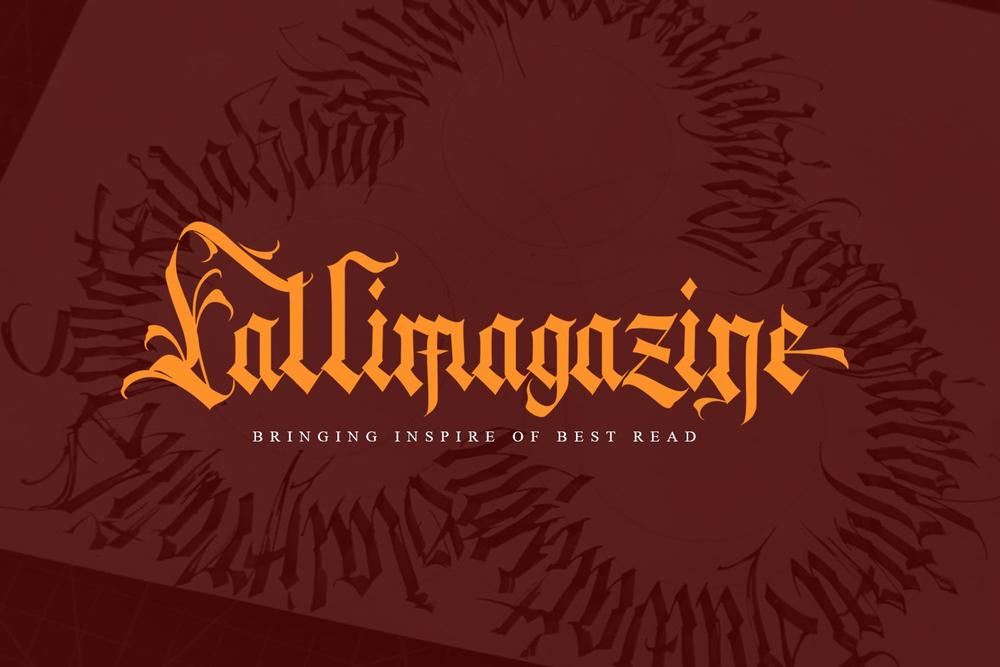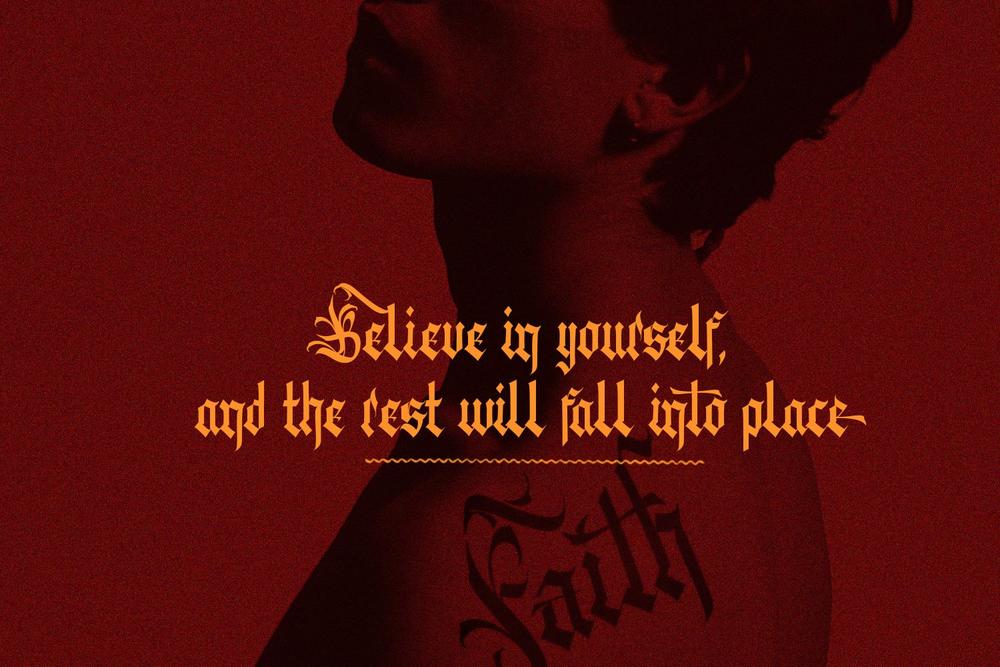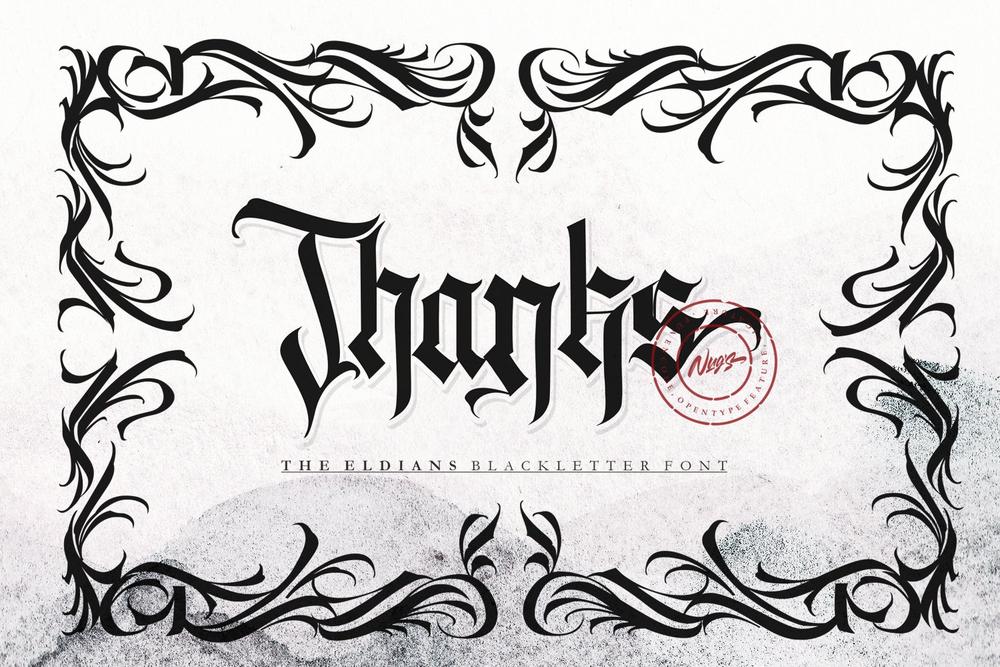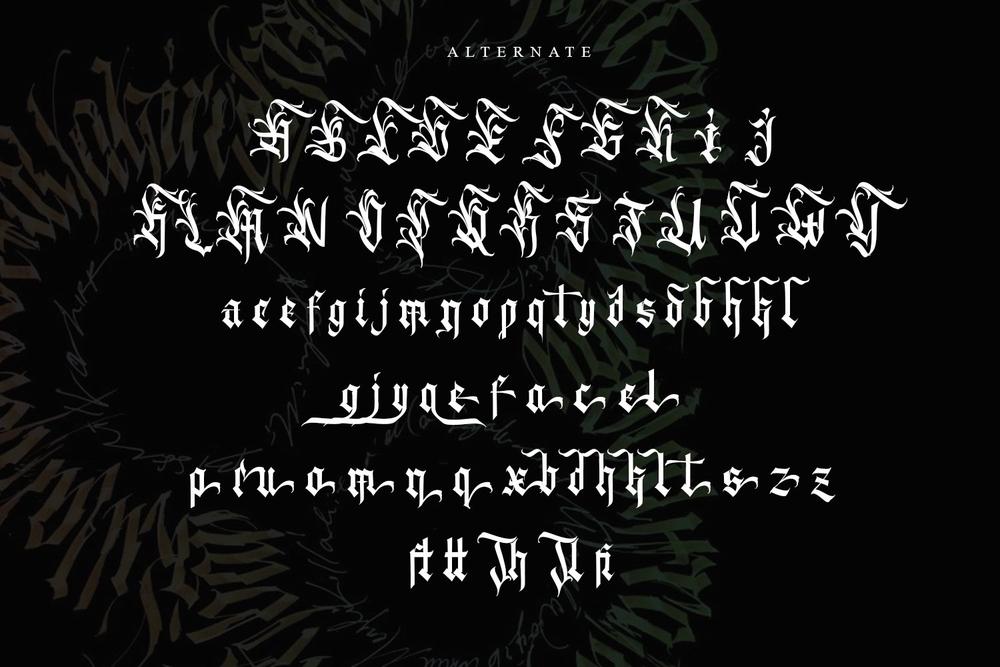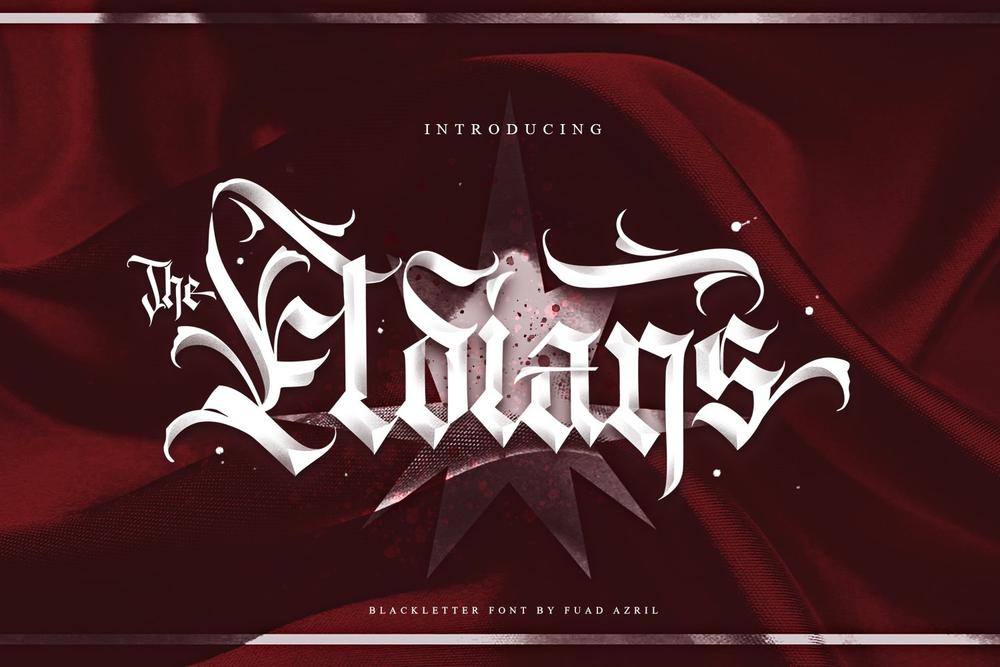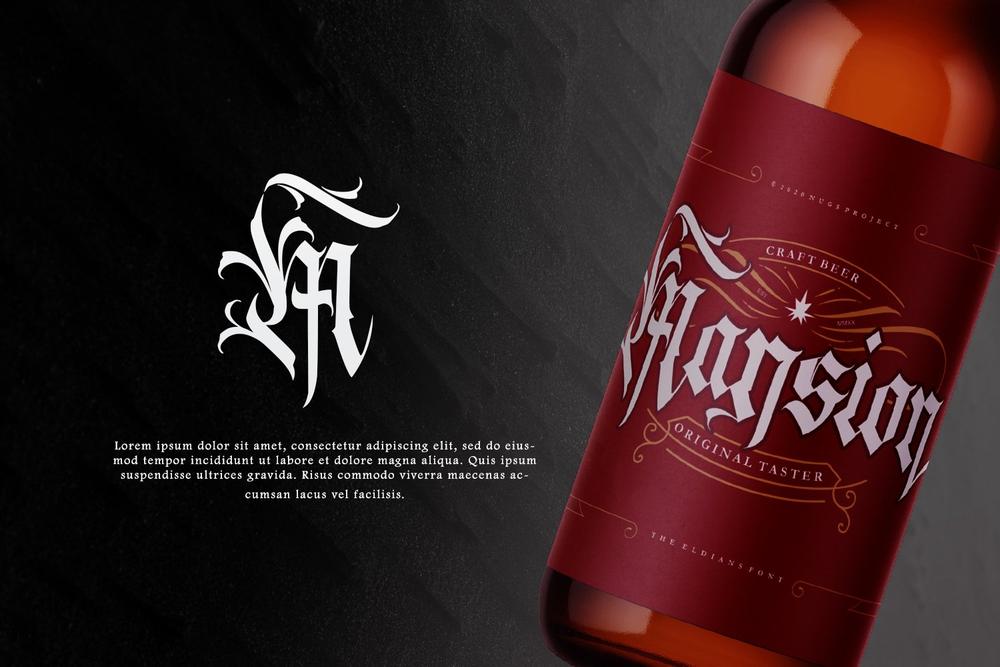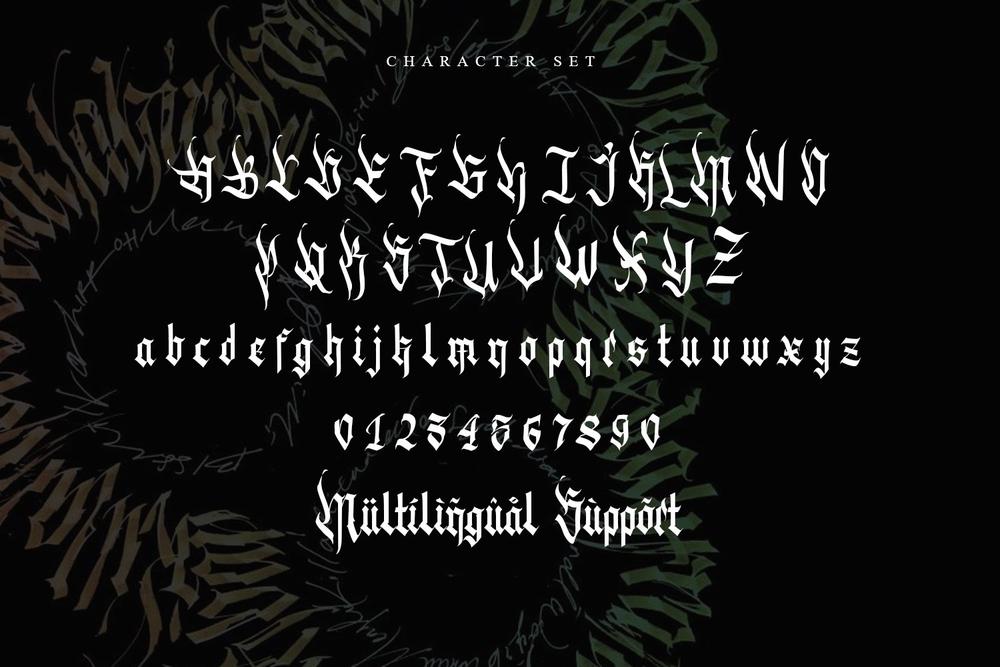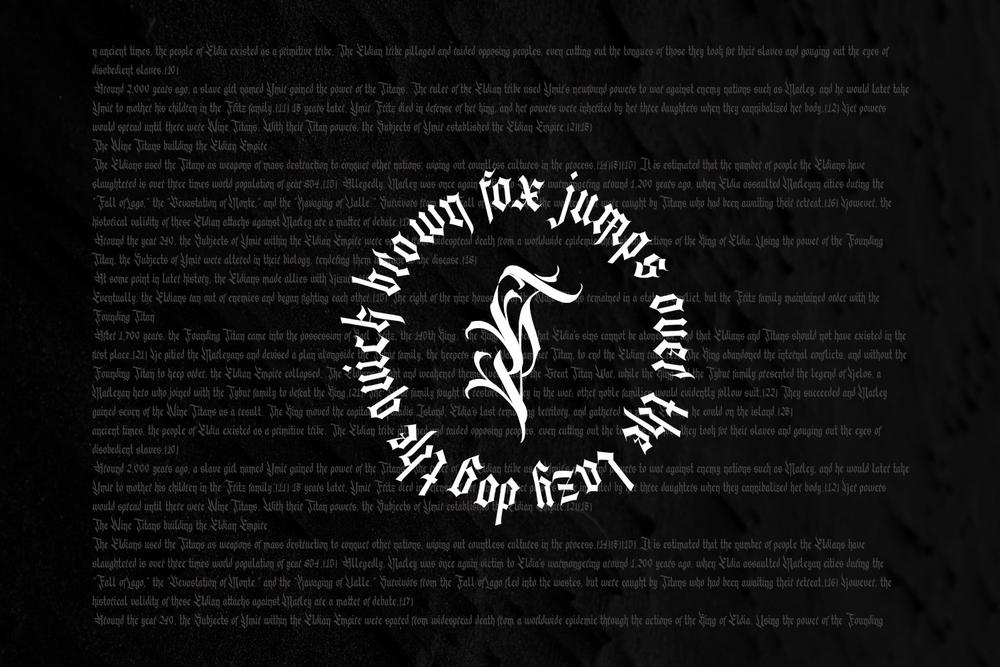
This font features a bold blackletter and gothic-inspired style with sharp ornamental details and dramatic medieval aesthetics. The characters are highly decorative, combining traditional Old English influences with modern edgy flourishes. Its angular strokes, pointed terminals, and intricate curves create a dark, rebellious, and mysterious atmosphere. 𝐅𝐞𝐚𝐭𝐮𝐫𝐞𝐬 : ☛ Alternates ☛ Uppercase & lowercase letters ☛ Numerals & punctuation ☛ Multilingual support ☛ Bonus Ornament 𝐅𝐨𝐫𝐦𝐚𝐭 : OTF, TTF, EPS and WOFF.